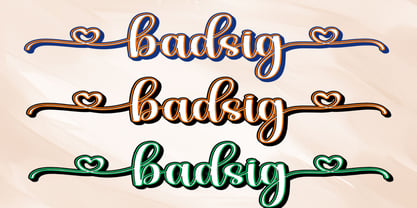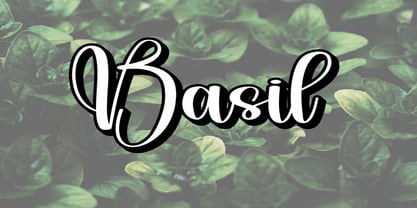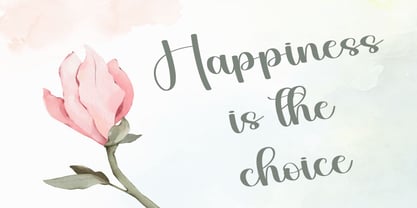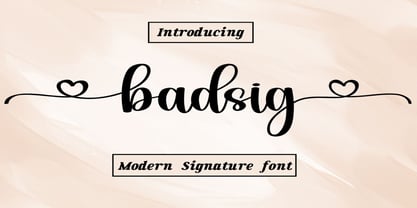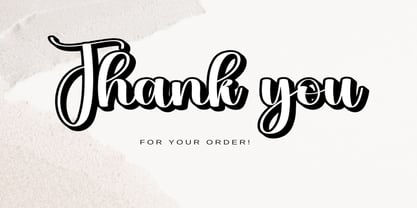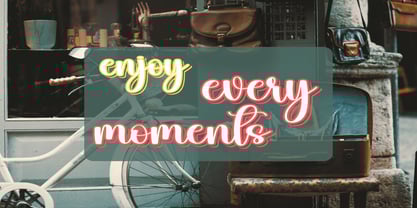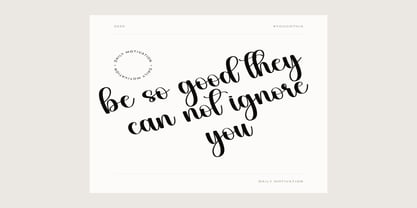
Badsig
by Dream Font
The Badsig Font Family was designed by David Nalle and published by Dream Font. Badsig contains 1 styles. More about this family
Badsig is a delicate, elegant, and flowing handwritten font perfect for your favorite projects. Fall in love with its incredibly distinct and timeless style, and use it to create spectacular designs! This font is PUA encoded, which means you can access all of the glyphs and swashes with ease!
Designers: David Nalle
Foundry: Dream Font